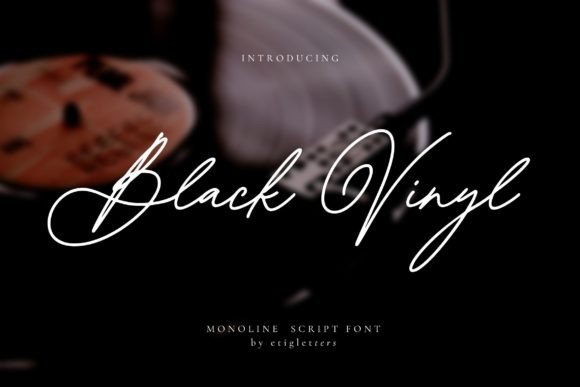
Welcome to the world of Black Vinyl, an enchanting script font family that will captivate your senses and leave you breathless. This exquisite creation by etigletters is a masterpiece of digital calligraphy, meticulously crafted to evoke elegance, sophistication, and versatility.
Black Vinyl is not just a font; it's an experience. Its delicate strokes and graceful curves dance across the page, creating a visual symphony that will mesmerize your audience. Each letter is a work of art, carefully balanced and proportioned to achieve perfect harmony.
With Black Vinyl, the possibilities are endless. Dive into its incredibly versatile style and let your creativity flow. Craft stunning Instagram posts that will captivate your followers, leaving them in awe of your design prowess. Create eye-catching logos and branding that exude professionalism and leave a lasting impression. Design enchanting invitations and greeting cards that will make your loved ones feel cherished and special.
This font family is the perfect choice for those who appreciate the finer things in life. Its timeless beauty and classic appeal transcend trends, ensuring that your designs will remain relevant and stylish for years to come. Whether you're a seasoned designer or just starting out, Black Vinyl will elevate your projects to new heights of excellence.
So, why settle for ordinary when you can have extraordinary? Embrace the beauty of Black Vinyl and embark on a creative journey that will leave you spellbound. Let your designs speak volumes, expressing your unique style and captivating the hearts of all who behold them.
Step into the world of Black Vinyl today and unlock a treasure trove of creative possibilities. Experience the joy of crafting designs that are as beautiful as they are effective. Transform your words into works of art and let your creativity shine brighter than ever before.